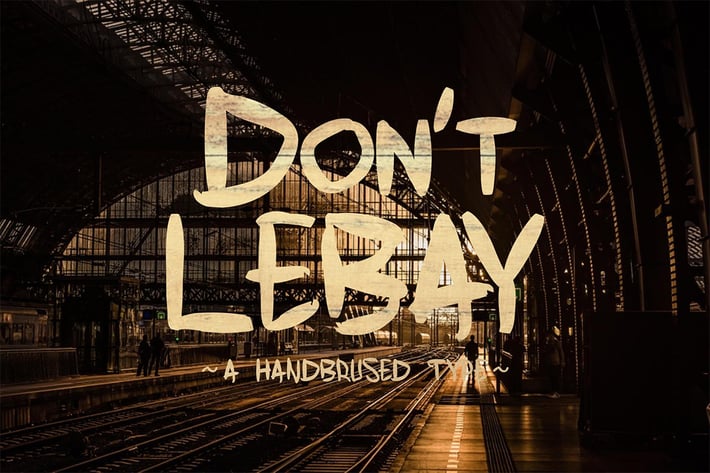
Don't Lebay Font
Don’t Lebay Font
Type A script font with a smooth handwritten style. Sleplesson is perfect for branding projects, homeware designs, product packaging, use in name card, invitation cards, etc. Simply as a stylish text overlay to any background image or anything requiring a sprinkle of elegance.